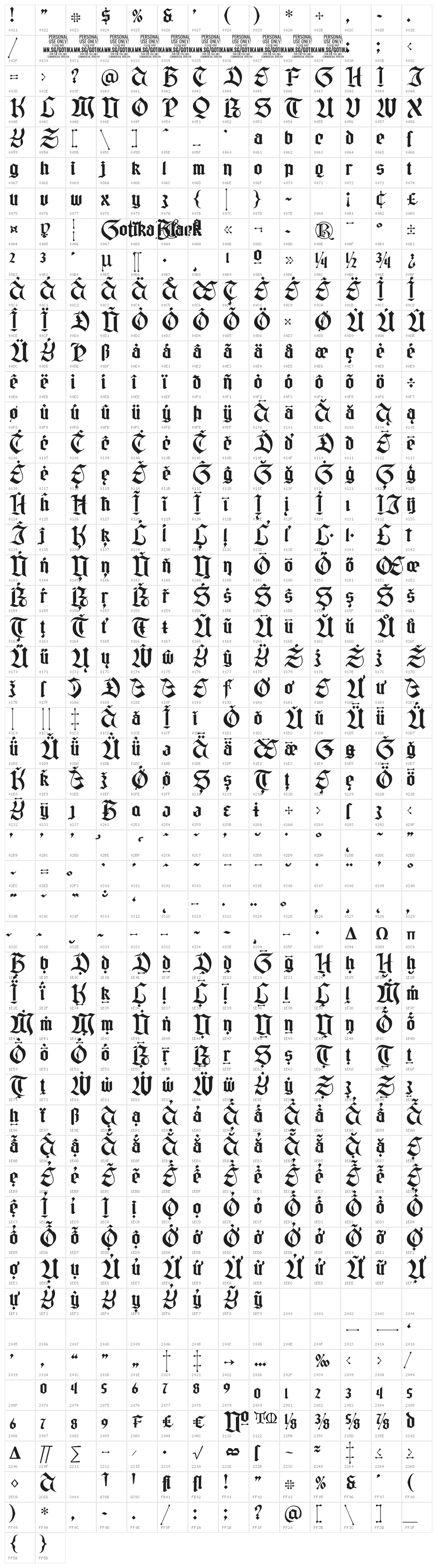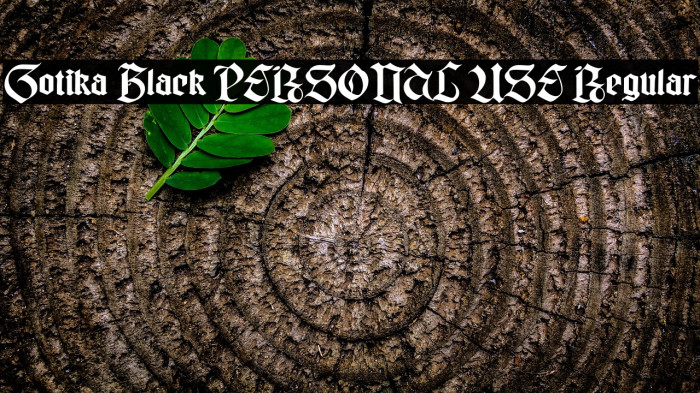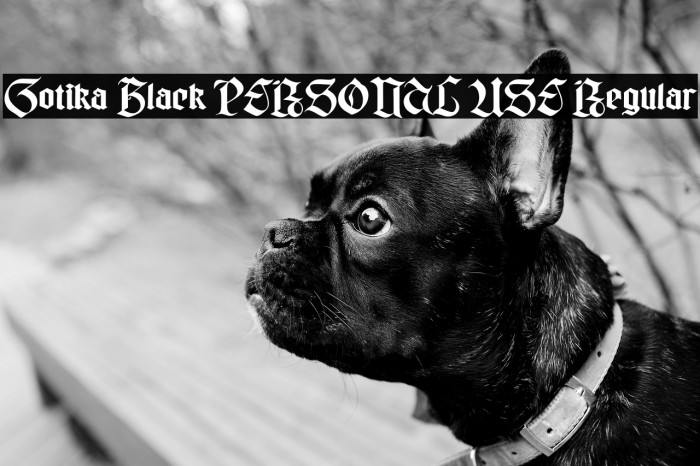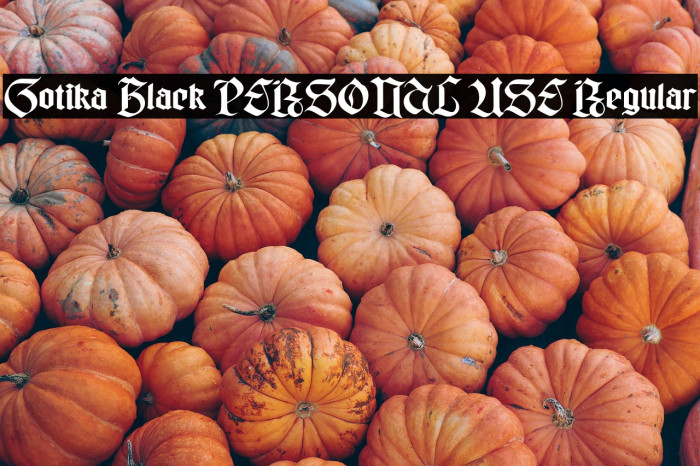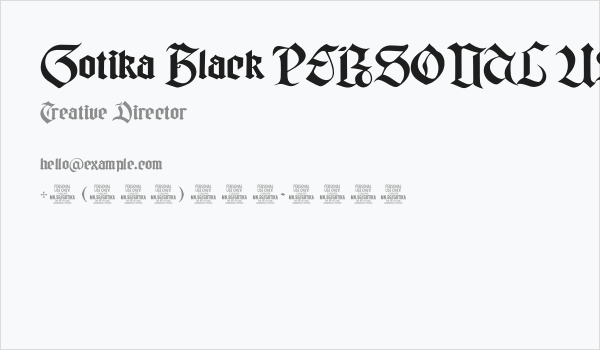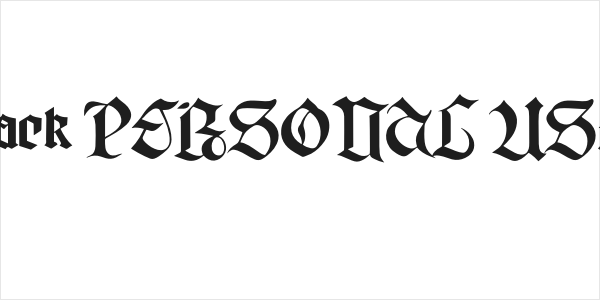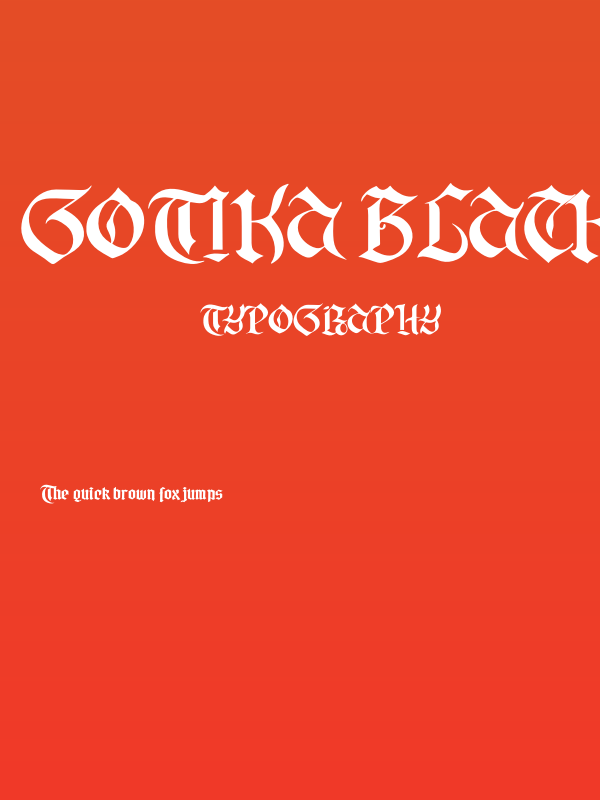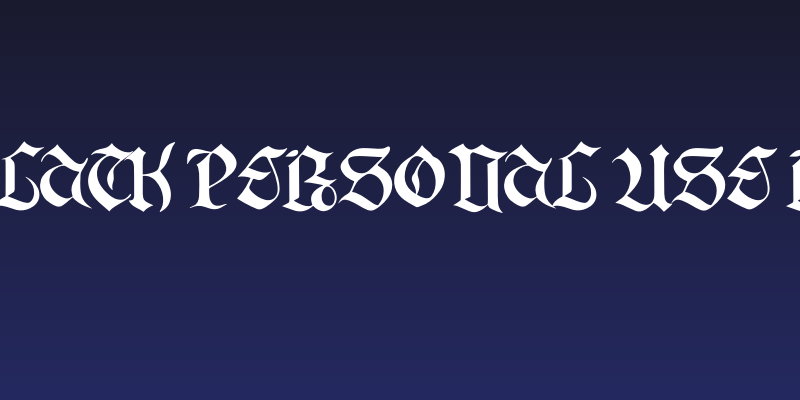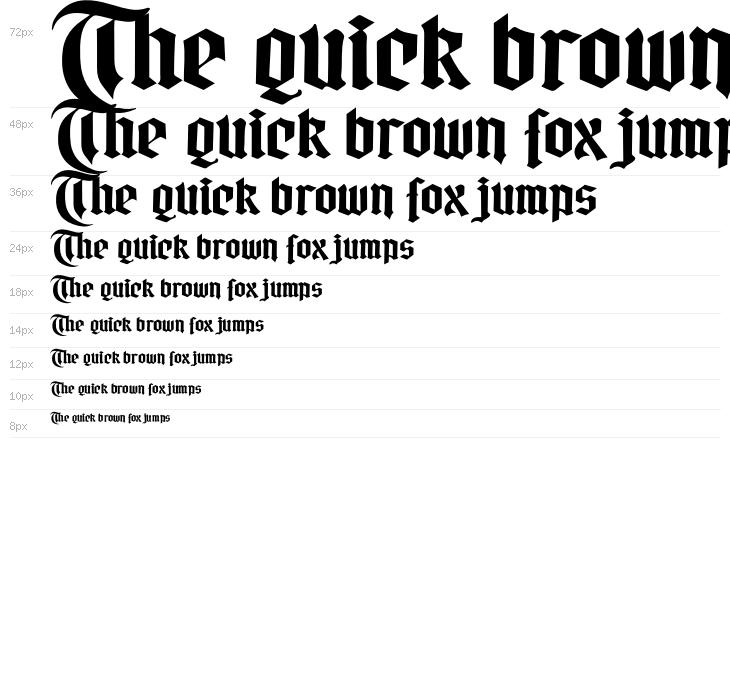
Gotika Black PERSONAL USE Regular Font
Gotika Black PERSONAL USE Regular Description
This font exhibits a bold and dramatic blackletter style, characterized by its intricate and angular letterforms. The uppercase letters are ornate with sharp edges and pointed serifs, while the lowercase letters maintain a consistent weight and style, enhancing readability. The numerals and special characters follow the same decorative theme, making them suitable for thematic designs. The overall appearance is reminiscent of medieval script, offering a sense of tradition and formality.
| Proposed Projects | Ideal for projects requiring a historical or gothic touch, such as event posters, book covers, or branding for themed restaurants. |